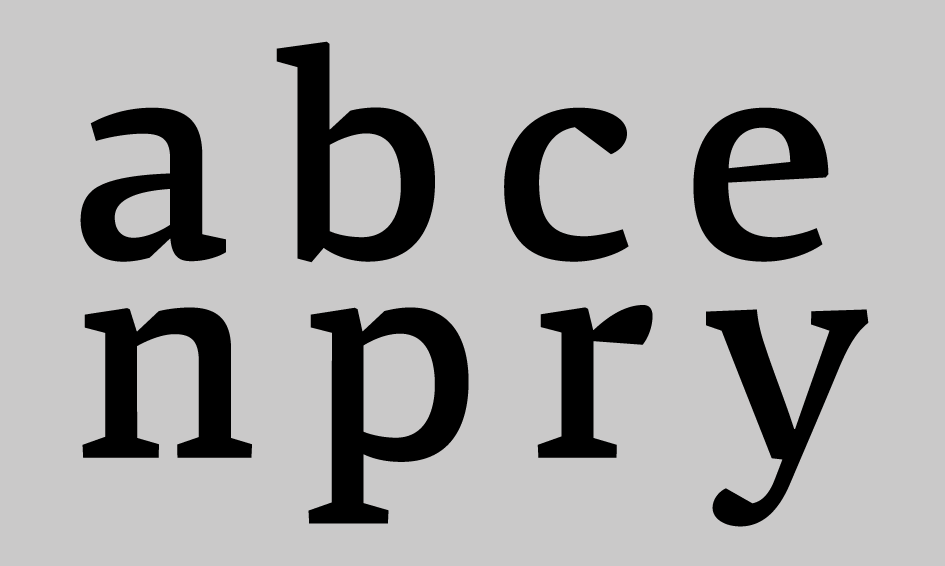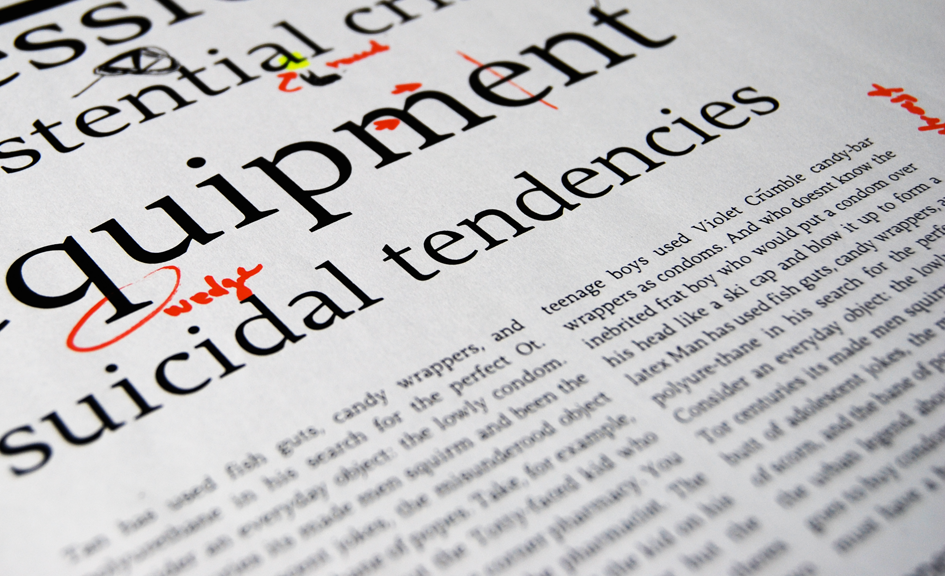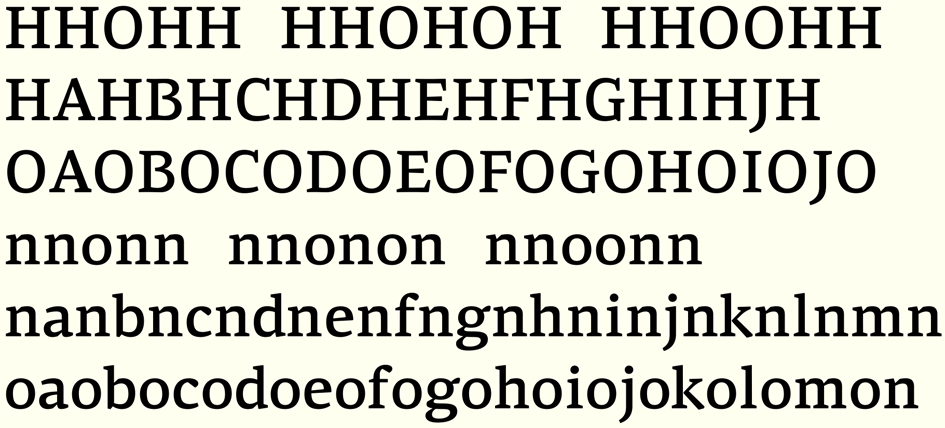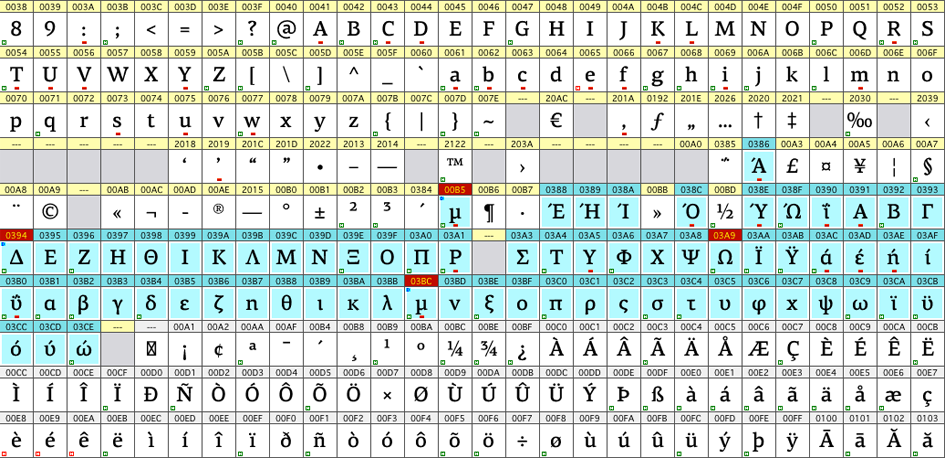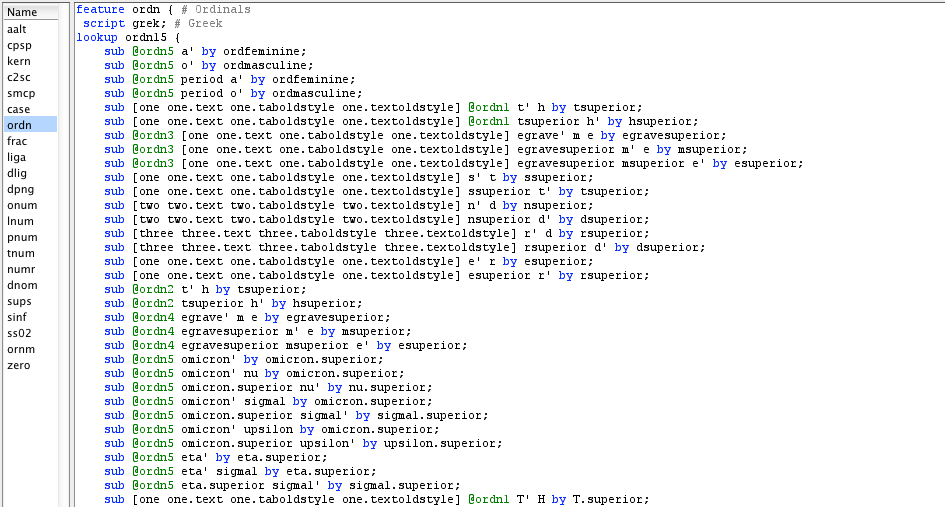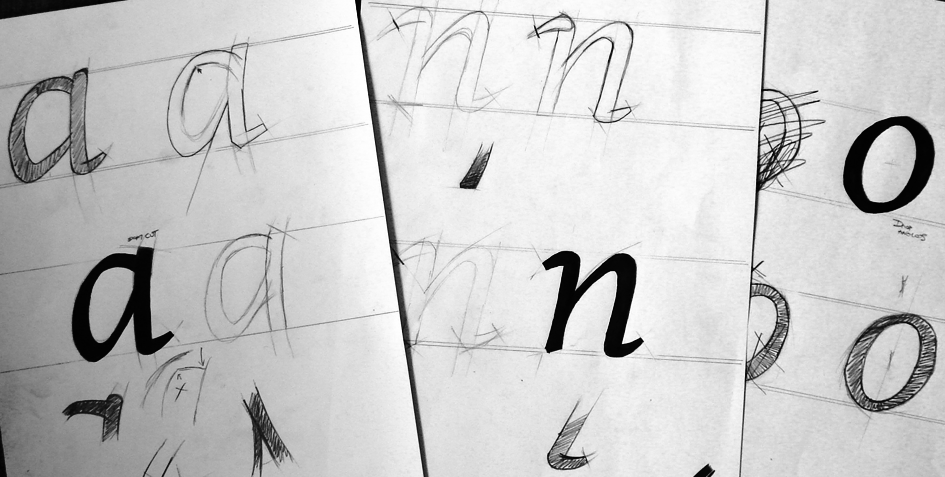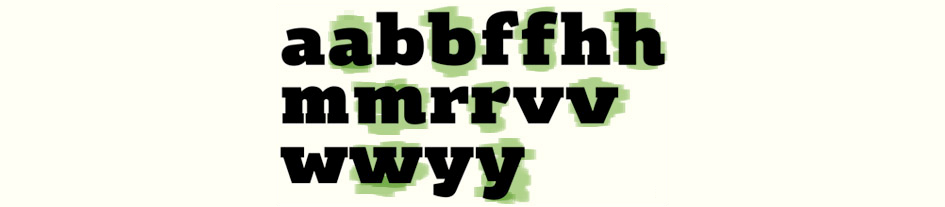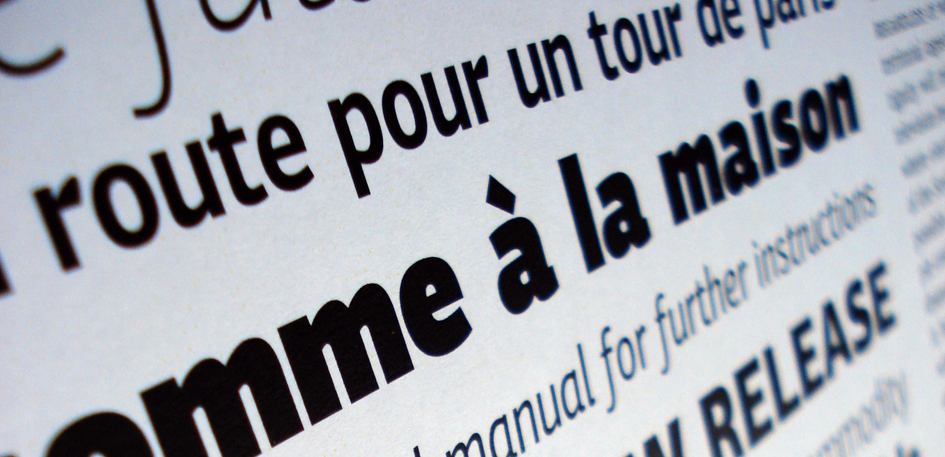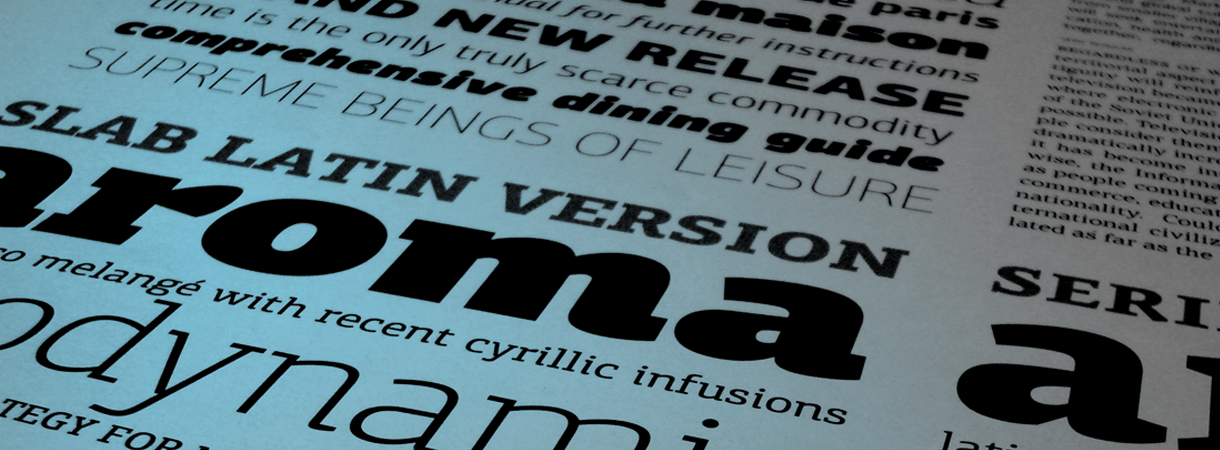
How this versatile award-winning type system was designed
The Centro Project started out as a small serif family of eight weights, but it grew to become one of the most versatile set of related superfamilies. The result is a series of three families, Centro serif, Centro sans and Centro slab for a total of 40 weights. Each font contains 1519 glyphs and supports simultaneously Latin, Greek and Cyrillic. It is recommended for magazines, newspapers, catalogs and corporate identities.
Centro Serif
Centro Serif was the first to be designed. The project was initiated in 2005 with specific requirements in mind.
Basic Requirements
1. Design a contemporary typeface with square-like characteristics, which will be legible and perform very well at small sizes, but at the same time create a striking effect at large sizes. This would eliminate the need to modify the letters (optical compensation) and create an additional version for small sizes.
2. Balance out legibility with aesthetics in order to establish a distinct identity. Text typefaces have to obey certain rules so that they retain their natural (familiar) features which are particularly important when legibility and readability are of major concern. This, of course, leaves not much space to the designer for absolute originality. Eventually, distinctive identity would have to rely on a mix of differentiations mostly in the contrast, the stress of the letters, the serifs and the joints.
3. Perform equally well in Latin, Greek and Cyrillic (visual match). Often designers rely on outdated references for scripts other than Latin. This eventually creates a visual mismatch when mixed scripts are used in a modern document.
4. Incorporate special symbols for publications and packaging.
After setting the basic requirements of the new typeface, I went through the long process of deciding what the design aspects are going to be. It always helps to look back to what the masters of the trade have done. Some characteristics of Centro serif were modelled after W.A. Dwiggins’ experiments with type (fig.2).
fig. 2
The angular slanted serifs of Centro, in letters like ‘n’, ‘p’, ‘r’ etc. (fig.4), while they foster a distinct identity at display sizes, they tend to look like curves at small sizes. Other characteristics like the abrupt cut at the joints were influenced by Galfra (fig.3), a typeface designed in 1975 by Ladislas Mandel for the Italian phone directories.
fig. 3
These cuts add a certain flair to Centro serif (fig.4) especially at display sizes, but they are functional as well, since at small sizes, while they disappear into rounded curves, they compensate for over-inking.
Other characteristics (fig.4) include:
1. Letter ‘e’ with a slanting bar (reminiscent of Jenson’s types).
2. Wedge-shaped serifs (at x-height) which are not steep but almost horizontal, in order to foster an even appearance when reading body text.
3. Balance the effect of the strong angular serifs by introducing ‘tear-shaped’ ball terminals to letters like ‘c’, ‘f’ and ‘y’. The terminal of letter ‘r’ follows suit.
4. Triangular letters like ‘v’, ‘w’, ‘y’ with a pronounced stroke shape.
5. Larger than usual x-height to make it more legible at smaller sizes.
6. Stress not quite vertical but slightly inclined.
fig. 4
7. Robust, low contrast typeface. High contrast between the thin and thick strokes is often the reason text becomes difficult to read. (fig.5) shows a test page of an early discarded version. Contrast was later decreased and several letters replaced with alternate forms.
8. Stroke thickness. Several classic serif typefaces were examined and their proportions measured and averaged in order to decide on the proper stroke width for Centro serif. This process would insure getting as close as possible to what is normal color for regular weights, bold weights etc. Fine tuning is performed on-screen along with contrast adjustments.
9. Finally, capitals should become a bit heavier to compensate for the additional white in their shapes.
fig. 5
Implementation
Having now a clear view of how Centro serif is going to look like, implementation begins.
First I start with a very rough sketch of as many lowercase letters and as many characteristics as I can fit on paper (fig.6). Then I create a more elaborate sketch for several but not all characters, starting with ‘a’, ‘n’ and ‘o’ (fig.7).
fig. 6
fig. 7
These are the three letters I always design first since they contain many of the characteristics I need as a guide for the design of other characters (fig.8). Contrast is not a matter of concern at this stage, as it will be adjusted on-screen at a later stage.
fig. 8
The pencil outlines are only used as a basis for digitisation (fig.9), whereas further adjustments and corrections as well as a large number of characters are drawn on-screen. In most cases I design first a regular weight.
The roman letterforms, whilst discreet at small sizes, maintain a clean, sturdy and unique personality which motivates the reader. On the other hand, they attract attention at display sizes with their distinct sharp characteristics. Italics, on the other hand, are charming and exciting, clearly distinguished from the romans. Finally, Centro is extremely designer friendly, as it is loaded with a vast array of opentype features and numerous -hard to find- useful symbols for diverse design applications.